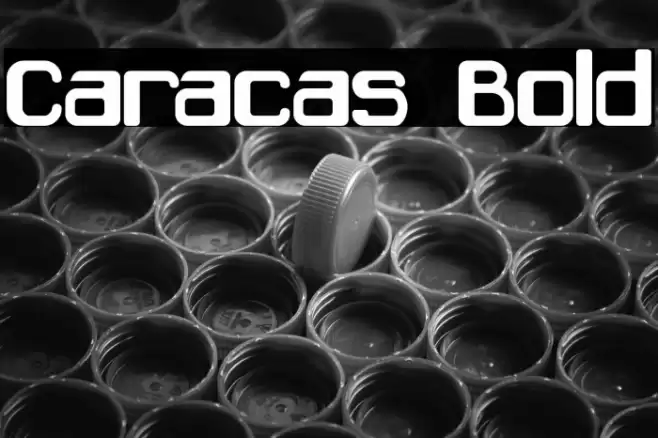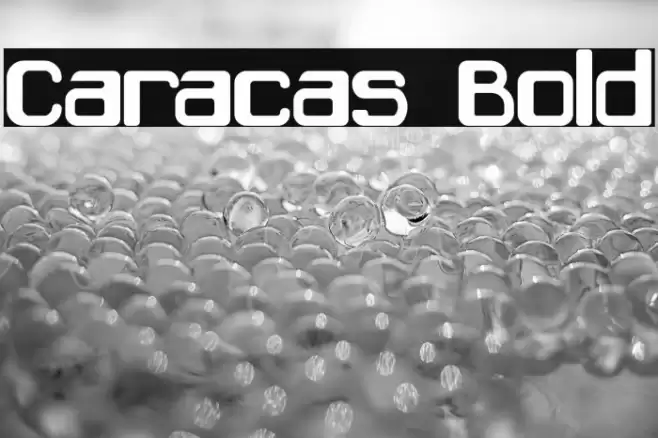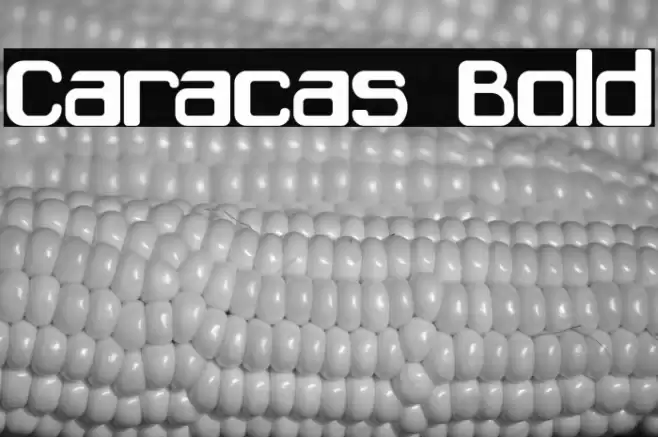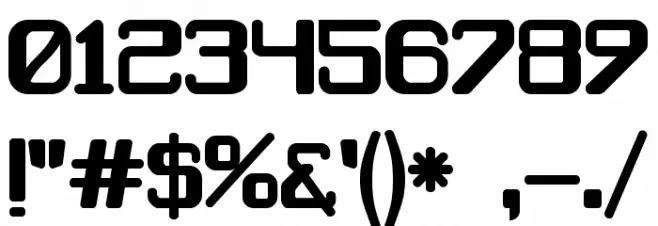
Caracas Bold Font
Caracas Bold Description
This font features a bold and modern design with a geometric and slightly rounded appearance. The characters are uniform in width, giving it a monospaced feel, yet they maintain a distinct style that sets it apart from traditional monospaced fonts. The uppercase letters are strong and assertive, while the lowercase letters maintain a consistent flow. The numerals are clear and easy to read, making them suitable for digital displays. Special characters are well-integrated, maintaining the overall aesthetic. The font's boldness and unique style make it ideal for attention-grabbing headlines and logos.
A bold, modern font with a geometric and slightly rounded design from Uncategorized fonts.
- Proposed Projects: Ideal for digital displays, branding, headlines, and modern graphic design projects.
- Use Case: Headlines, Logos, Digital displays